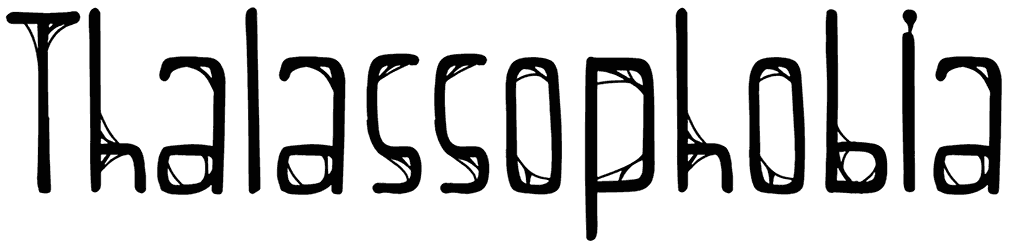
Thalassophobia Font
Designed byEsa Nugroho
Thalassophobia is a horror font that will give your digital work a frightful touch. Despite lacking numbers, it may be found everywhere, from flyers and banners to invitations.
Thalassophobia is an original and unique display font. It was inspired by the deep waters in the ocean.